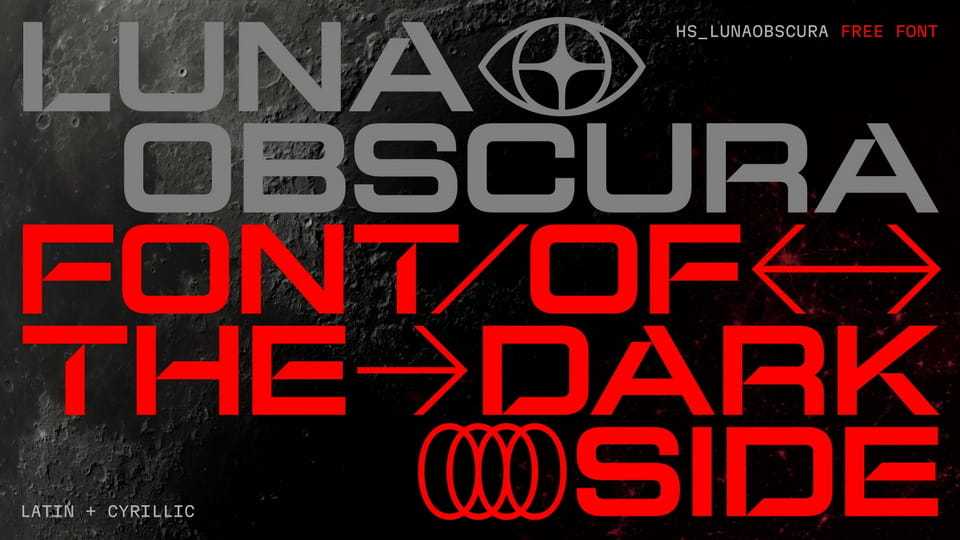
Download LunaObscura font, an industrial display typeface designed with a futuristic, high-tech aesthetic. Its bold geometric structure and sharp, engineered forms create a strong sci-fi and dystopian atmosphere.
Designer: Roman Mavrin